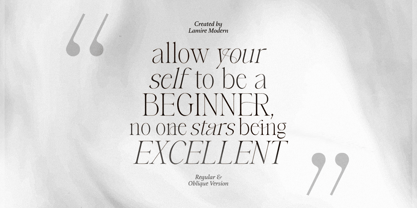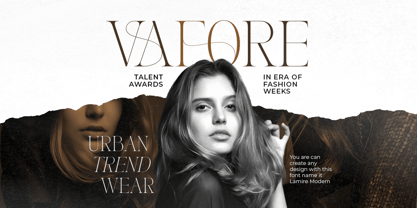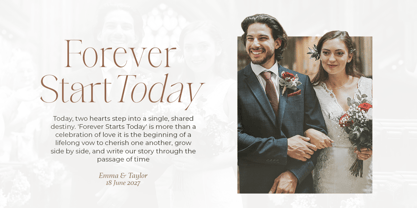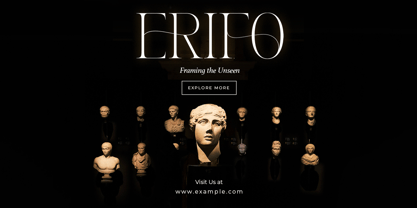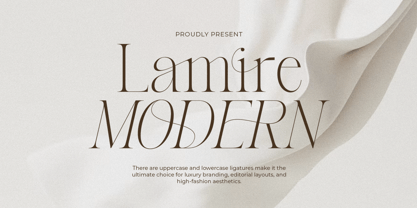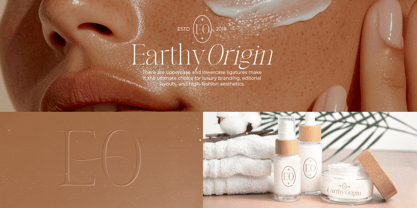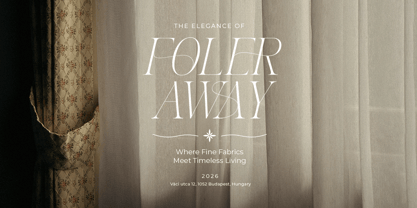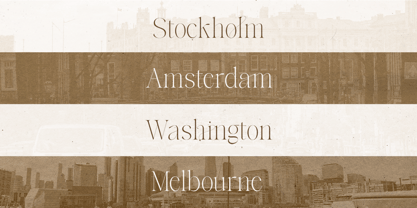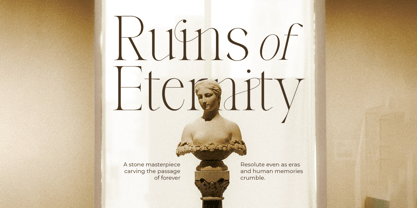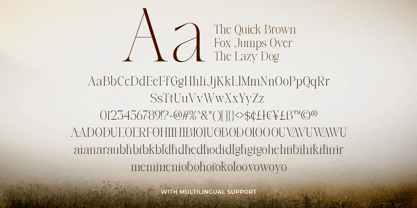
Lamire Modern
Die Schriftfamilie Lamire Modern wurde von Dzikrul Aulia entworfen und von Bale Type veröffentlicht. Lamire Modern enthält 2 Stile und Familienpaketoptionen. Mehr über diese Familie
Lamire Modern is a light and elegant serif font featuring a beautiful collection of stylish ligatures. It is perfect for a wide range of creative purposes, including branding, logotypes, quotes, invitations, editorial designs, and any project that needs a clean, luxurious, and sophisticated look. With its modern and distinctive ligatures, Lamire Modern adds a refined touch to your designs, helping them look more stunning, stylish, and memorable. This versatile font also supports multiple languages, making it a great choice for both personal and professional projects.